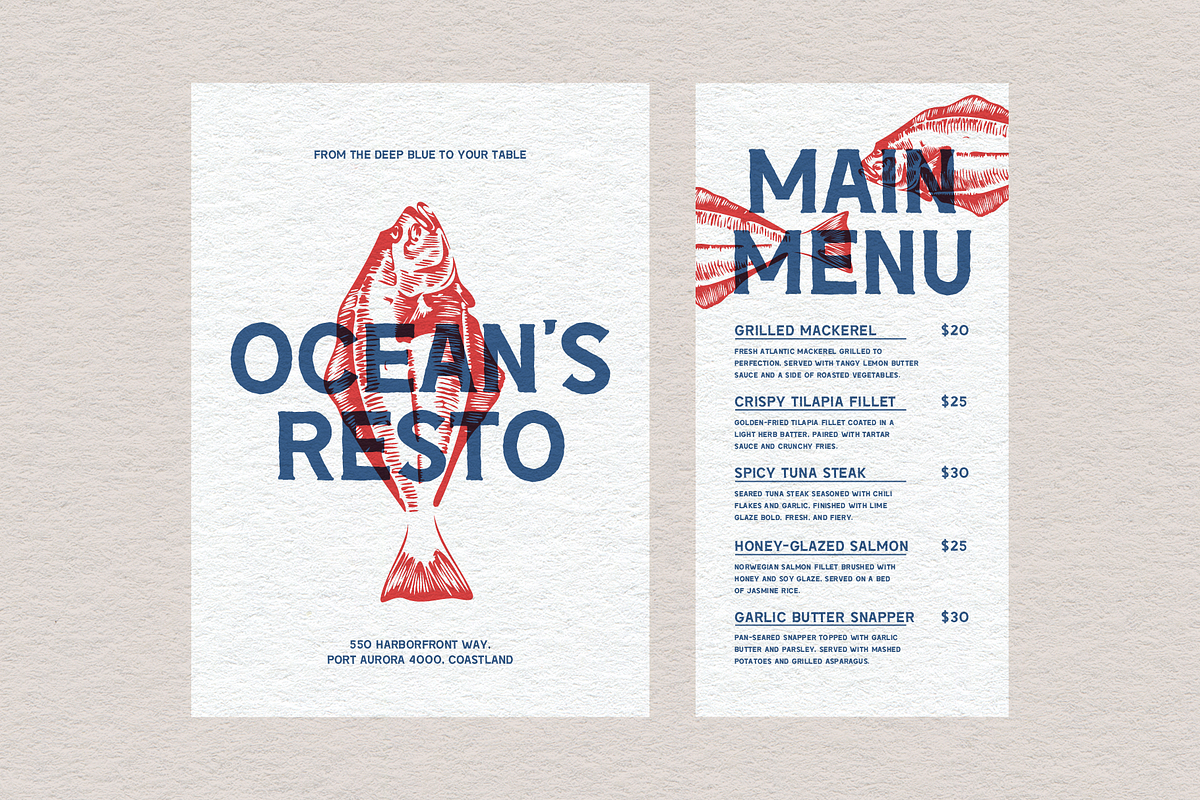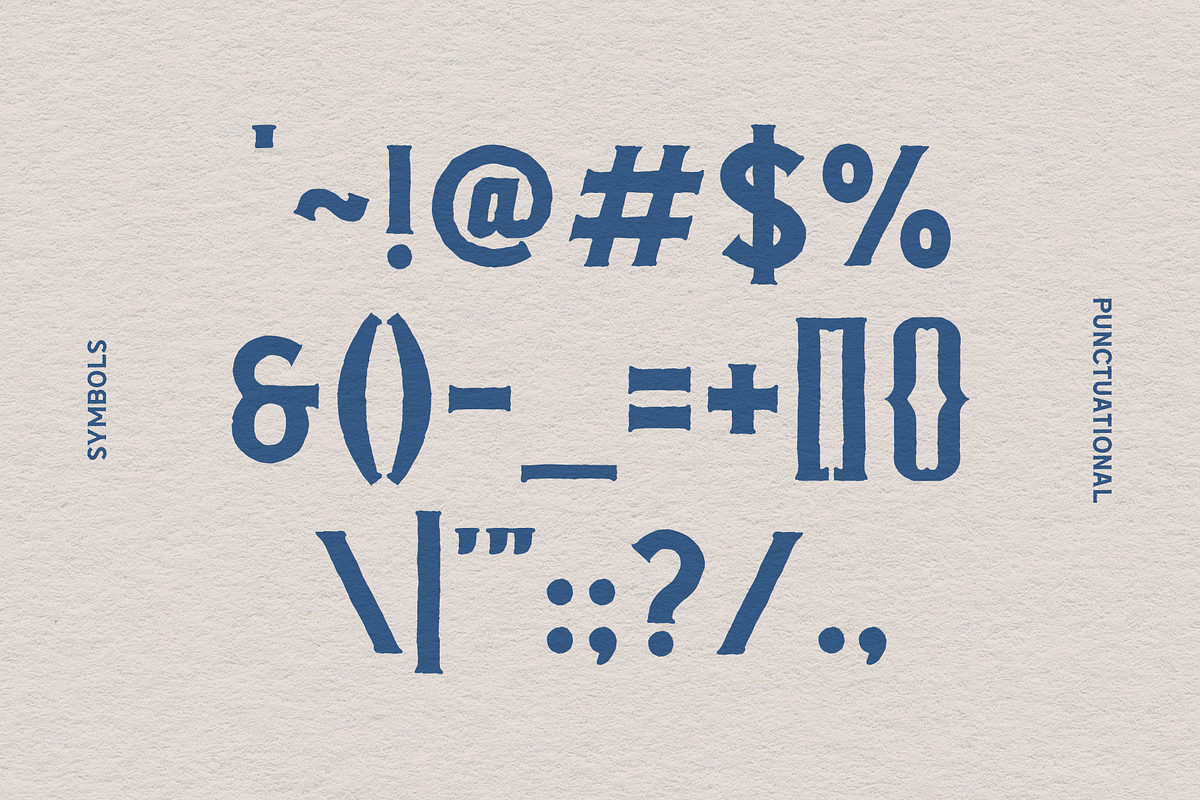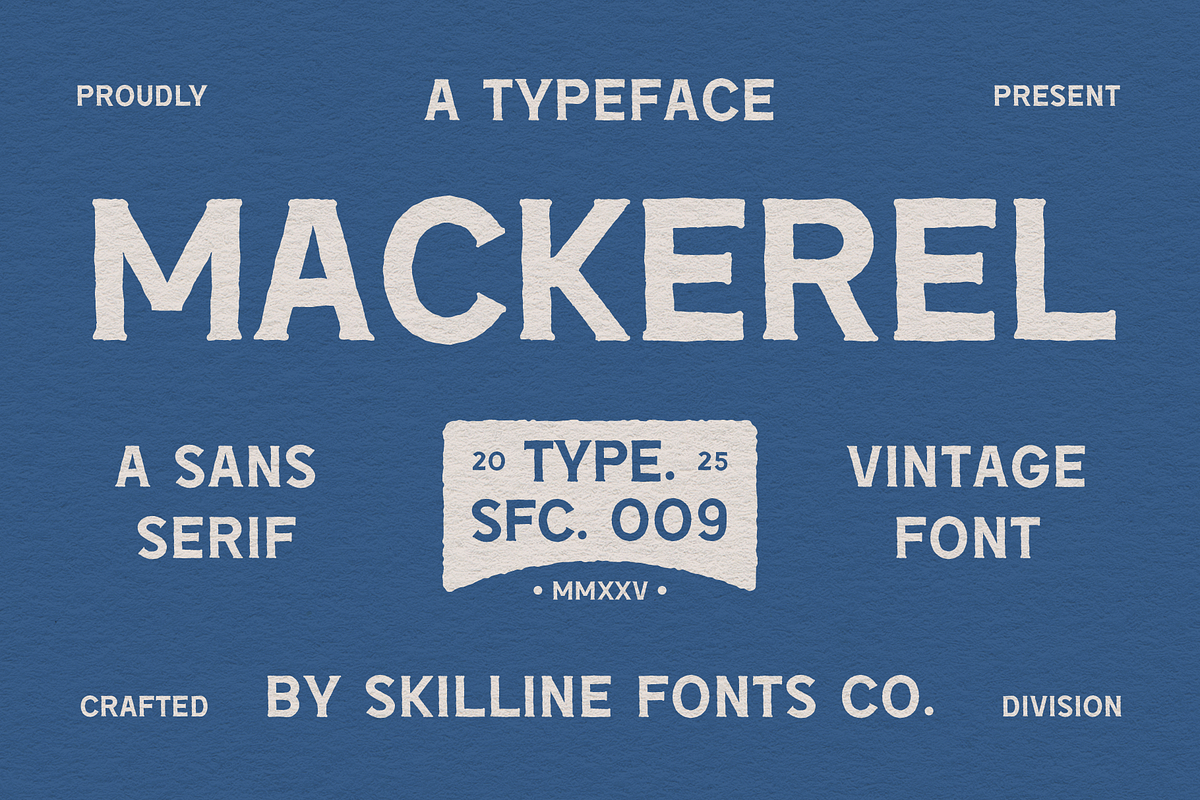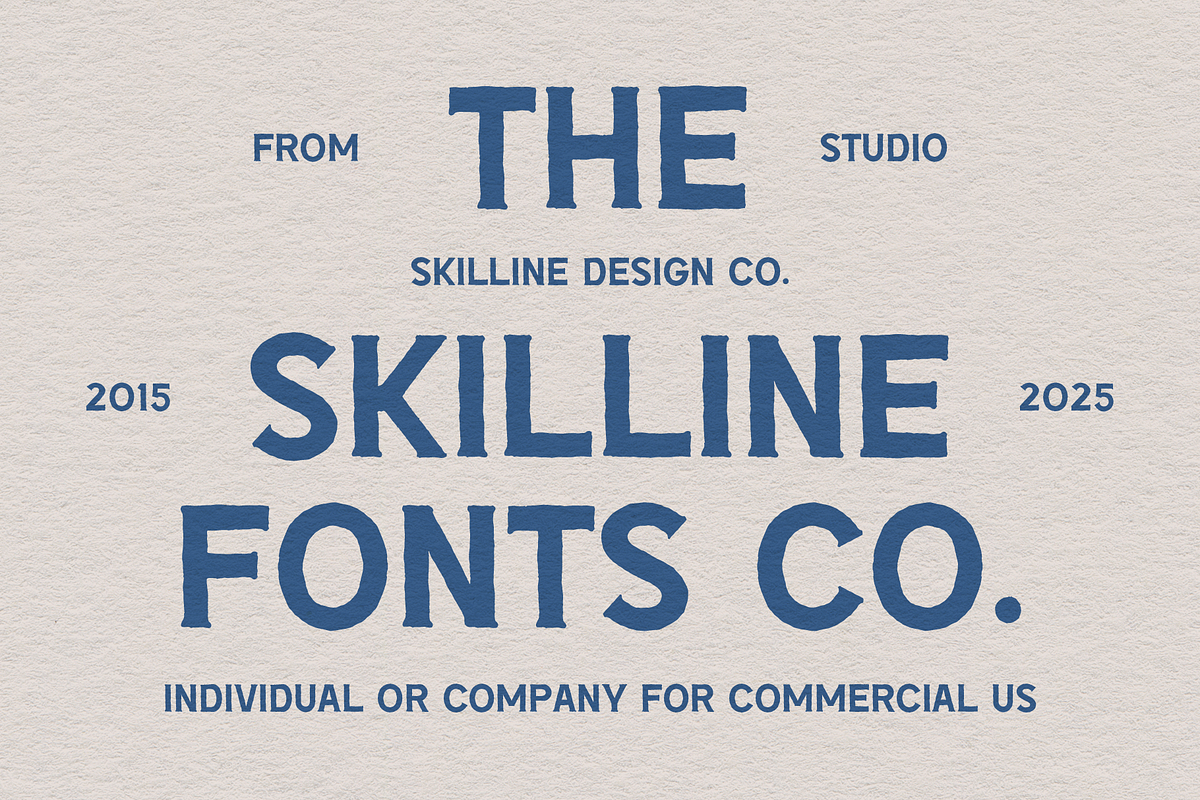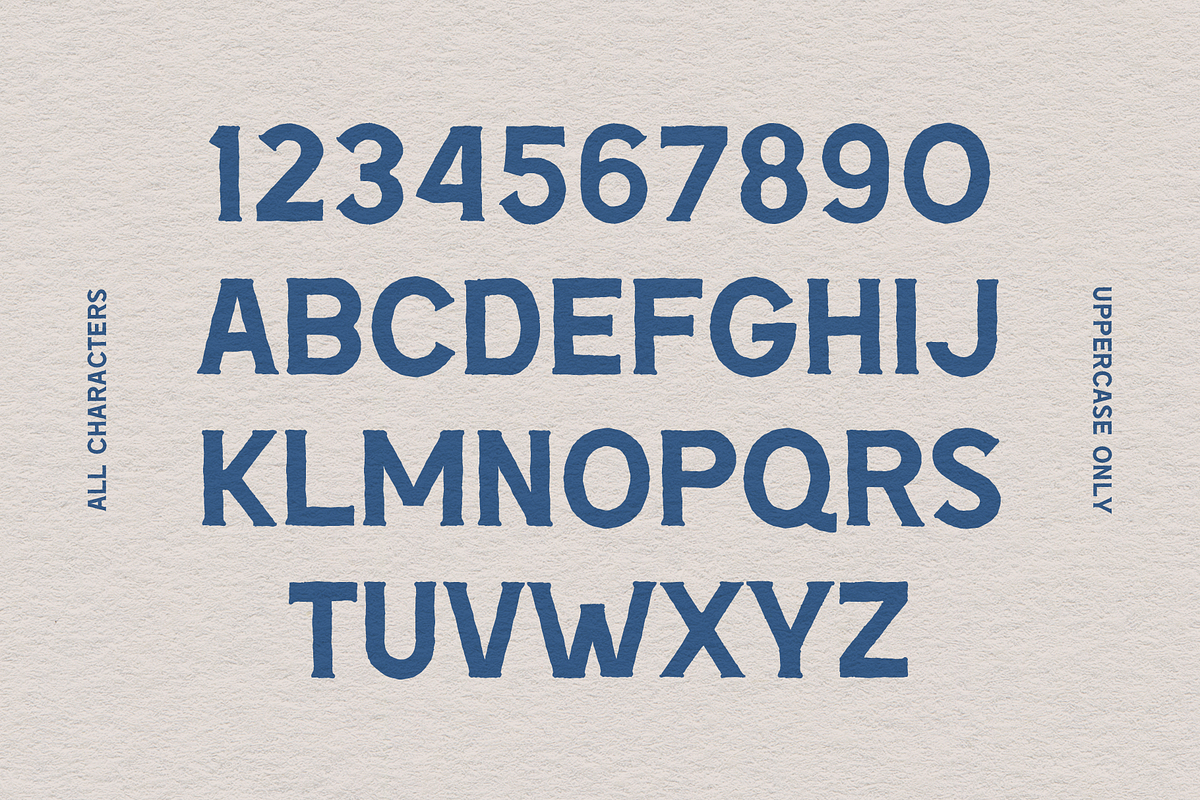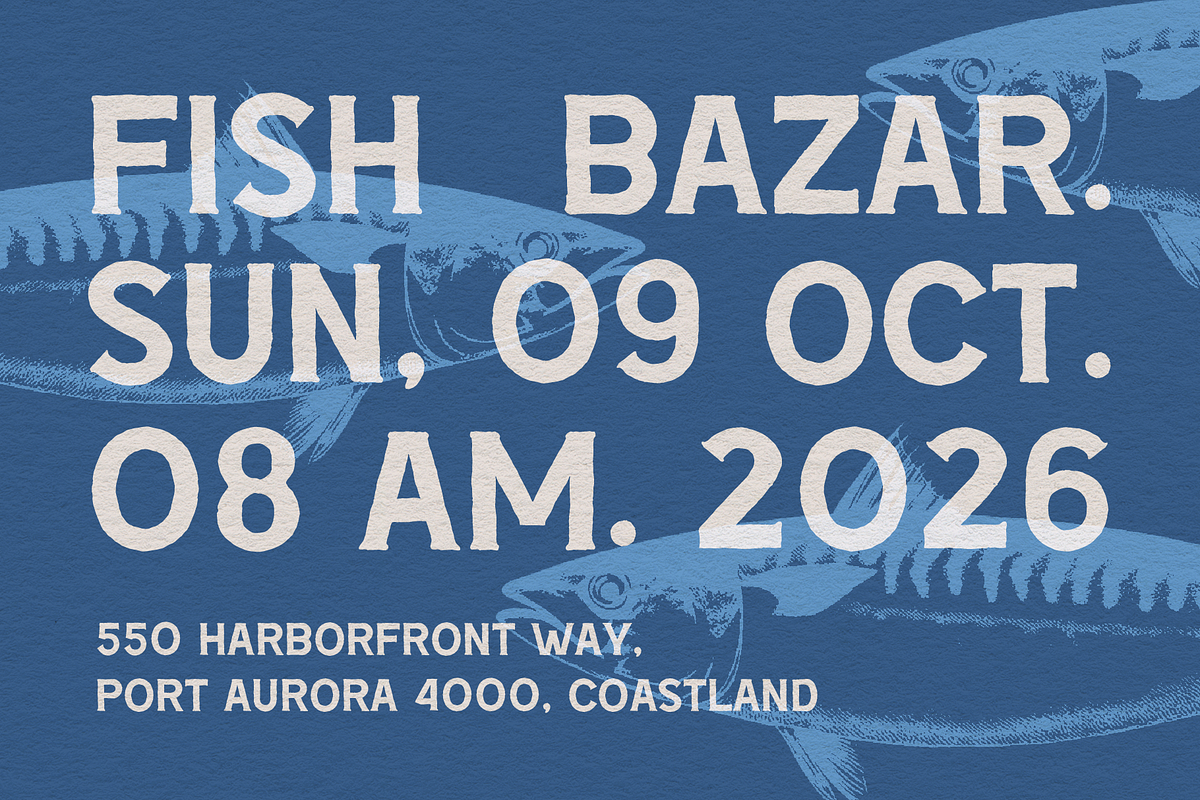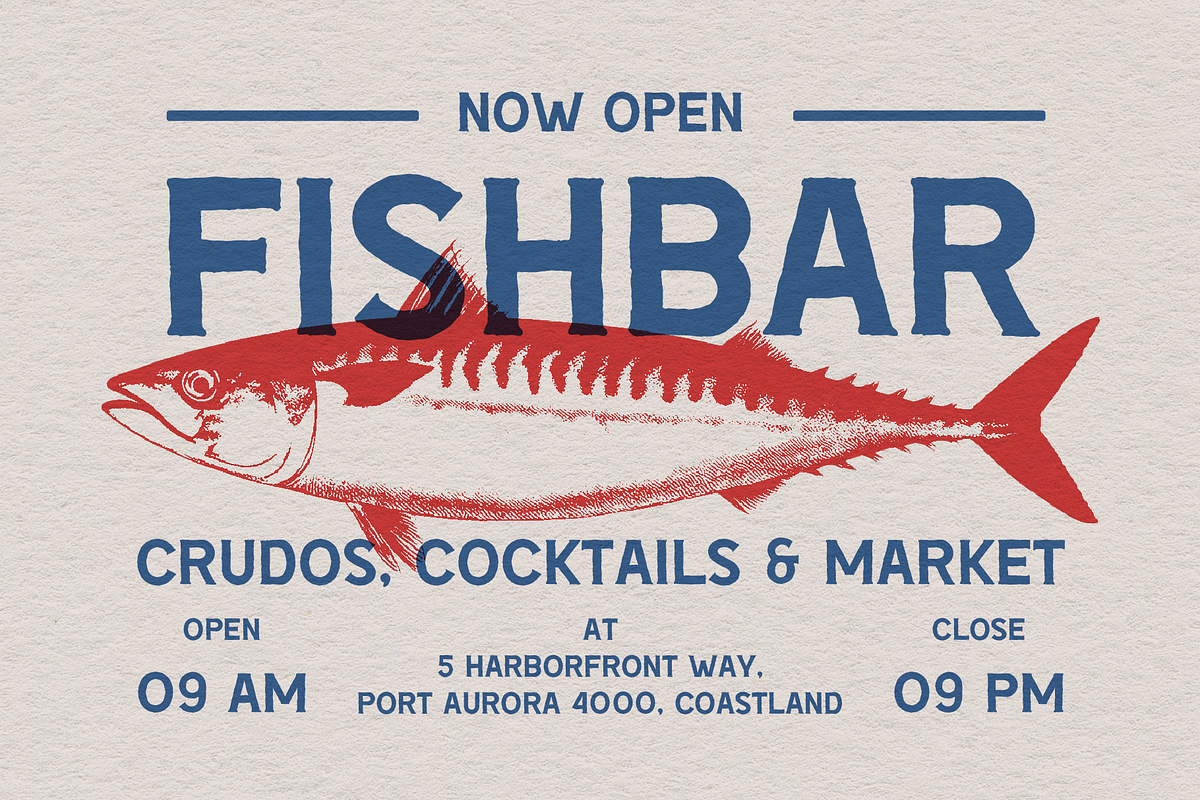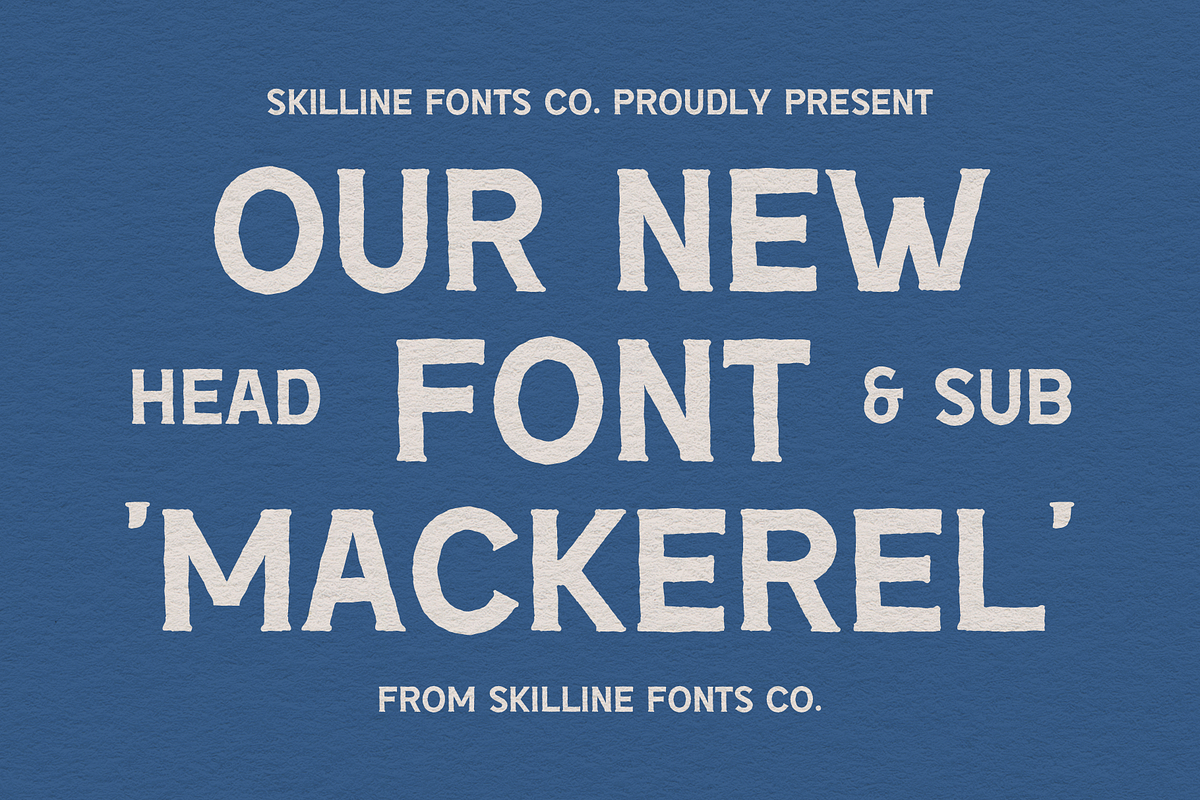
SFC Mackerel
Mackerel is a bold vintage sans serif typeface that captures the strength and authenticity of hand-painted lettering. Designed with a balance of clean geometry and organic texture, it brings a warm, human touch to modern design. Its handcrafted edges and subtle imperfections make it perfect for projects seeking both rugged character and timeless readability.
Inspired by mid-century signage, maritime design, and classic branding, Mackerel feels right at home on logos, packaging, apparel, and editorial layouts. Its sturdy, all-caps structure ensures clarity and impact, while the textured details add depth and authenticity to every composition.
Built for versatility, Mackerel adapts easily across print and digital platforms—ideal for brands that value craftsmanship, simplicity, and a touch of nostalgia.
Ideal Applications for Mackerel
Branding and logo design with bold vintage personality
Packaging and product design with handcrafted appeal
Posters and signage with strong visual presence
Apparel graphics and merchandise with classic charm
Editorial and headline design with timeless readability